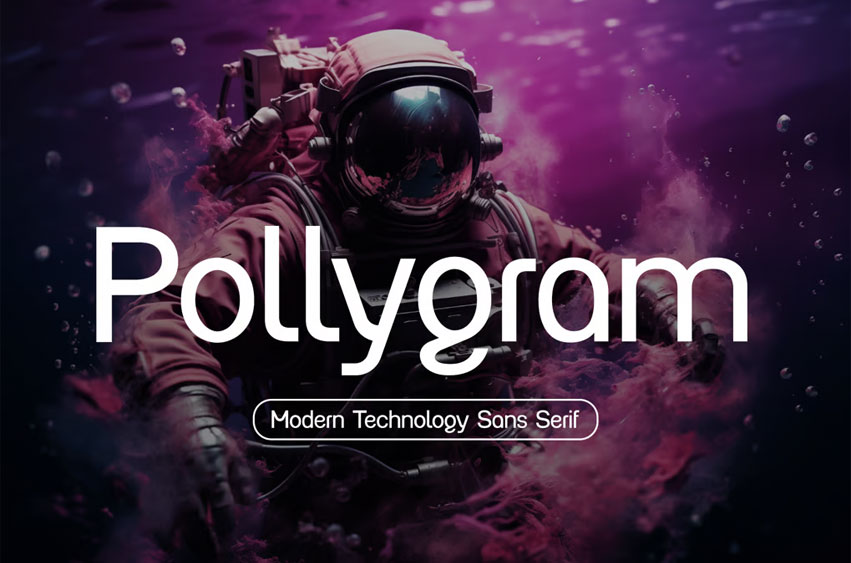
Pollygram Font Modern Sans Serif Font emerges as a distinctive geometric typeface that embodies contemporary design principles with remarkable clarity and precision, meticulously engineered to deliver exceptional performance across today’s diverse visual landscape. This premium sans serif system provides designers with a powerful toolkit that balances minimalist aesthetics with functional versatility, enabling bold, confident communication for forward-thinking brands and projects. The font’s carefully constructed letterforms feature clean lines and thoughtful proportions, showcasing a perfect harmony between mathematical precision and subtle humanist touches that prevent sterility while maintaining modern sophistication.
Developed through rigorous exploration of geometric principles and contemporary design needs, Pollygram Modern Sans Serif Font achieves a distinctive visual identity that projects confidence and clarity without sacrificing character. Its consistent stroke weight and strategically implemented terminals create a cohesive visual rhythm that enhances readability while projecting progressive elegance. The typeface’s development prioritizes exceptional performance across digital interfaces and print applications, with optimized forms that maintain their integrity and impact across various sizes and contexts.
Pollygram Modern Sans Serif Font demonstrates particular excellence in environments where brands and organizations seek to communicate with clarity, confidence, and contemporary relevance. Its versatility makes it ideal for technology startups, digital platforms, corporate identities, environmental signage, and lifestyle brands that demand typographic distinction with forward-looking appeal.
The font’s ability to convey innovation and sophistication while maintaining exceptional legibility makes it particularly valuable for projects requiring a balance of personality and functionality, offering designers a typographic voice that resonates with audiences appreciating both minimalist aesthetics and practical performance.
Pollygram Modern Sans Serif Font Features:
- Precision-Engineered Geometric Architecture with Subtle Refinements
- Meticulously Balanced Letterforms with Contemporary Proportions
- Comprehensive Character Set Supporting Global Communication
- Strategic Alternatives for Enhanced Typographic Flexibility
- Advanced OpenType Implementation for Professional Control
- Complete Weight Range from Thin to Black for Hierarchical Expression
- Proportional and Tabular Figures for Various Numerical Applications
- Carefully Considered Case-Sensitive Forms and Small Capitals
- Optimized Spacing and Kerning for Superior Text Setting
- Exceptional Legibility Across Digital Interfaces and Print Media
- Cross-Platform Performance Optimization for Consistent Display
Pollygram Modern Sans Serif Font represents a significant achievement in contemporary type design, offering creators a comprehensive system that delivers both distinctive character and functional excellence. Its thoughtful development ensures exceptional versatility across applications while maintaining the confident, progressive aesthetic that elevates modern visual communication. For designers and organizations seeking typography that projects clarity, innovation and contemporary relevance, this font family provides an essential resource that embraces minimalist principles while offering the practical versatility required by today’s multifaceted design challenges.